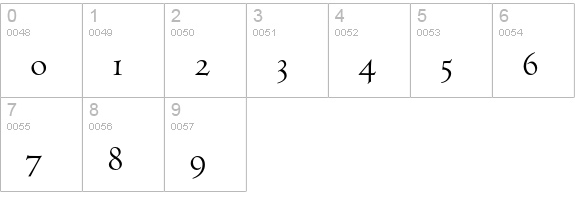
Centaur MT Small Caps & Oldstyle Figures Font Details
Centaur MT Small Caps & Oldstyle Figures font is a timeless and elegant typeface that effortlessly combines classic elements with a modern twist. With its sophisticated design and exquisite details, this font is perfect for adding a touch of refinement to your projects. This versatile font features small caps and oldstyle figures, making it ideal for a wide range of design applications, from editorial layouts to branding and packaging. Its clean lines and graceful curves create a sense of sophistication and style, making it a popular choice among designers and creatives. And the best part? Centaur MT Small Caps & Oldstyle Figures font is available for free download at FontsMarket.com, allowing you to easily access this stunning typeface for your projects without any cost. Embrace the beauty and elegance of Centaur MT Small Caps & Oldstyle Figures font in your designs today and elevate your work to new heights of sophistication.